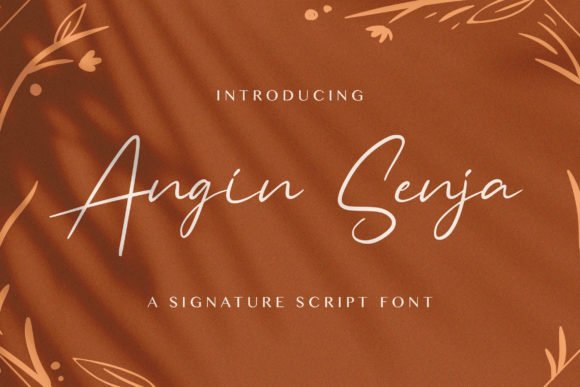
Unlock the Magic of Luxury Design with Angin Senja Font
Have you ever stumbled upon a font that perfectly captures the essence of your creative vision? For designers, this moment is pure bliss. It’s the spark that ignites an entire design project, elevating it from ordinary to extraordinary. And for me, that spark was the discovery of the stunning Angin Senja Font.
Angin Senja Font is a beautiful and stylish script font, featuring characters that dance along the baseline. This elegant design element will add a touch of luxury to any project, making it perfect for high-end branding, advertising, and editorial designs. Whether you’re working on a fashion magazine, a luxury product launch, or a high-end wedding invitation, Angin Senja Font is sure to impress.
As a valuable addition to any designer’s toolkit, Angin Senja Font offers endless creative possibilities. Its versatility and sophistication make it an ideal choice for designers looking to add a touch of luxury to their projects.
Key Features of Angin Senja Font
- Unique Characteristics: Angin Senja Font features a unique blend of traditional and modern elements, with intricate details and subtle nuances that set it apart from other fonts.
- Legibility: The font is designed for optimal legibility, with clear and readable text that is suitable for body text, headings, and titles.
Angin Senja Font Review
Overall, I’m impressed with the Angin Senja Font. It’s a beautiful, elegant script font that’s perfect for creative projects. Here’s what I like about it:
- ✨ Unique Character**: Angin Senja has a distinctive, hand-written feel that’s instantly recognizable. It’s a great choice for projects where you want to add a touch of personality.
- ✨ Highly Versatile**: The font works well in a wide range of applications, from invitations and posters to branding and marketing materials.
- ✨ Beautiful Ligatures**: The font’s ligatures are a joy to behold, adding to its organic, handwritten feel.
- ⚠️ Limited Weight Options**: Angin Senja comes in a limited range of weights, which may not be suitable for projects that require a wide range of font weights.
- ⚠️ Not Ideal for Small Text**: Due to its script nature, Angin Senja can be difficult to read in small text sizes. It’s best used in larger font sizes or for headings.
Overall, I’d highly recommend Angin Senja for creative projects where a beautiful, elegant script font is required. While it has some limitations, its unique character and versatility make it a great choice for designers looking to add a touch of personality to their work.
Tips for Getting the Most Out of Angin Senja Font
Use Angin Senja Font for titles, headings, and body text in creative and editorial projects.
Pair it with elegant and minimalist designs to create a sophisticated look.
Experiment with different font sizes and styles to achieve the desired effect.
Angin Senja Font is ideal for:
– Creative projects, such as magazines, brochures, and posters.
– Editorial projects, such as books, articles, and newsletters.
– Branding and marketing materials, such as logos, business cards, and websites.